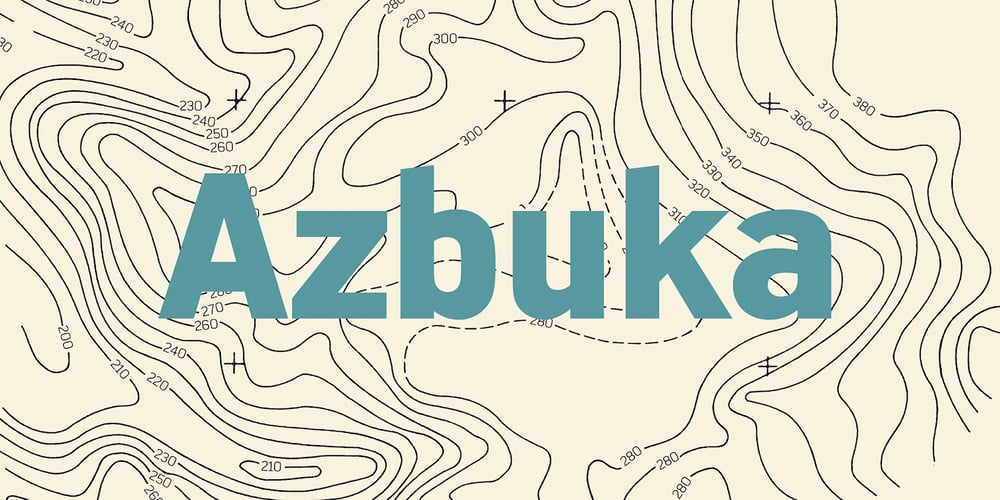
Azbuka Font Family was designed by Richard Dawson, Dave Farey and published by Monotype. Azbuka contains 21 styles and family package options. The Azbuka™ typeface family has its roots in a fairly pedestrian source. “The idea came in part from an old sign in London that read ‘SPRINKLER STOP VALVE’,” says Dave Farey, designer of the typeface. Like all good sign spotters, Farey took a photograph of the sign and filed it away for possible use in a lettering or typeface design project. In Prague a number of years later, the street signs reminded Farey of the London signage – and his camera came out again. Comparing the two back in his studio, he realized that the signs from London and Prague were not as similar as he initially thought. However, they were enough alike to serve as the foundation for a no-frills, 21st century sans serif typeface family.“I wanted to draw a wide range of weights, italic and condensed designs all in one go,” recalls Farey, “rather than add on to the family later.” His goal was to create a family that could be used for text and display copy, with sufficient weights to provide a broad typographic palette. Indeed, the completed design, created in collaboration with fellow type designer Richard Dawson, consists of twenty typefaces in eight weights ranging from extra light to extra black. The five mid-range designs have complementary italics. Seven condensed designs round out the family.Azbuka’s lighter weights perform remarkably well in blocks of text composition. “They’re clean and legible – and perhaps a little boring,” says Farey, “but they are perfect for copy with a down-to-earth, yet contemporary flavor.” The heavier weights are equally well suited for a variety of display uses. The designs are authoritative but not overbearing and will readily make a strong statement without calling attention to themselves. The condensed weights of Azbuka are ideal for those instances where you have a lot to say – and not much room to say it.The name Azbuka? It’s Russian for “alphabet.” And what more appropriate name could there be for this utilitarian, industrial-strength type family than alphabet?The Azbuka family is available as a suite of OpenType Pro fonts. Graphic communicators can now work with this versatile design while taking advantage of OpenType’s capabilities. The Azbuka Pro fonts also offer an extended character set that supports most Central European and many Eastern European languages